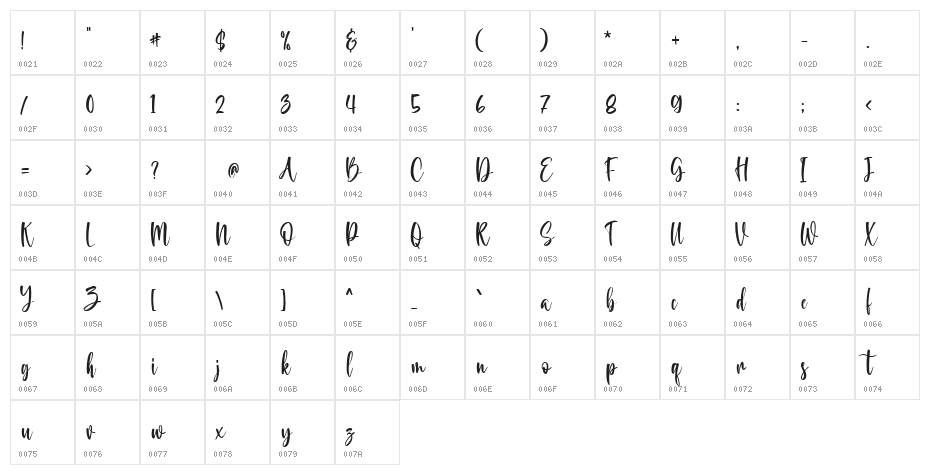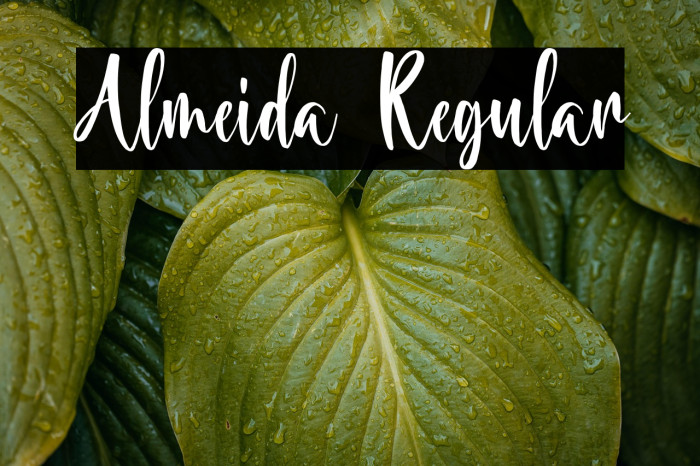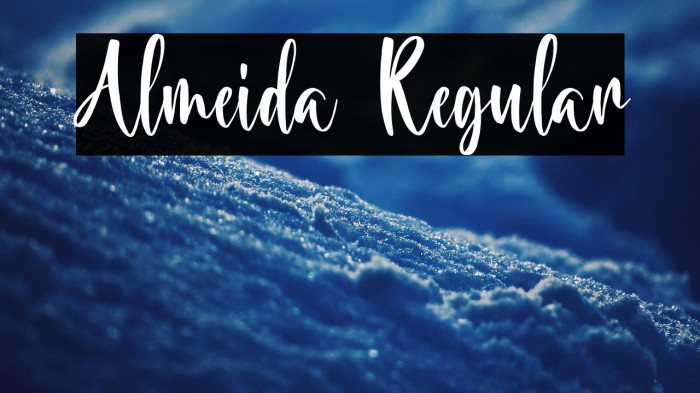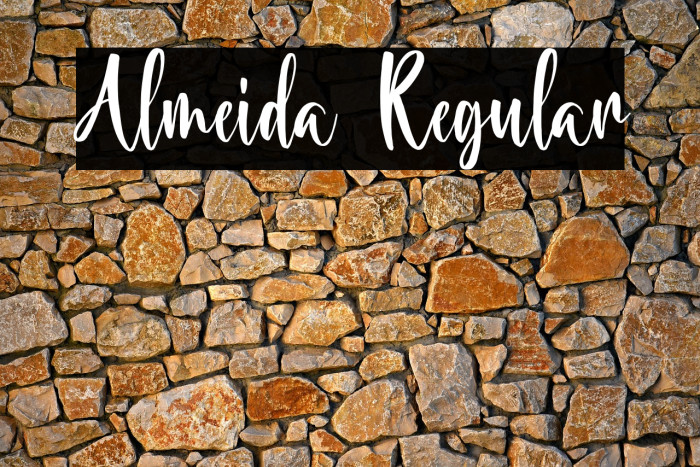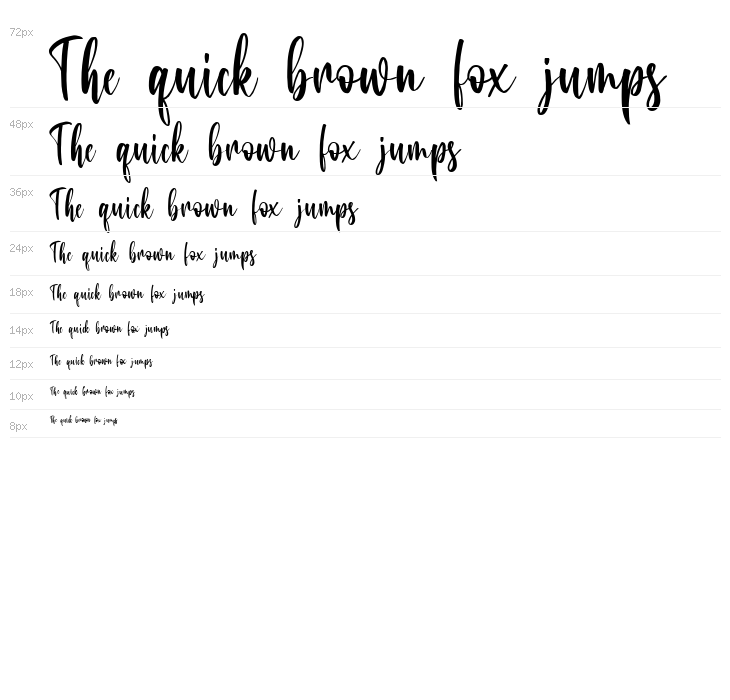
Almeida Regular Font
Almeida Regular Description
This font exhibits a lively and expressive script style, characterized by its flowing, cursive letterforms. The uppercase letters are bold and dynamic, with a playful yet elegant flair, while the lowercase letters maintain a consistent rhythm and fluidity. The numerals are well-integrated into the overall design, offering a cohesive look. Special characters are crafted with the same attention to detail, enhancing the font's versatility. The strokes vary in thickness, providing a medium contrast that adds to the font's visual interest. This font is perfect for projects that require a personal touch, such as invitations, greeting cards, and branding materials.
| Use Case | Logos, Headlines, Invitations |
| Proposed Projects | Ideal for invitations, greeting cards, branding, and personal projects. |